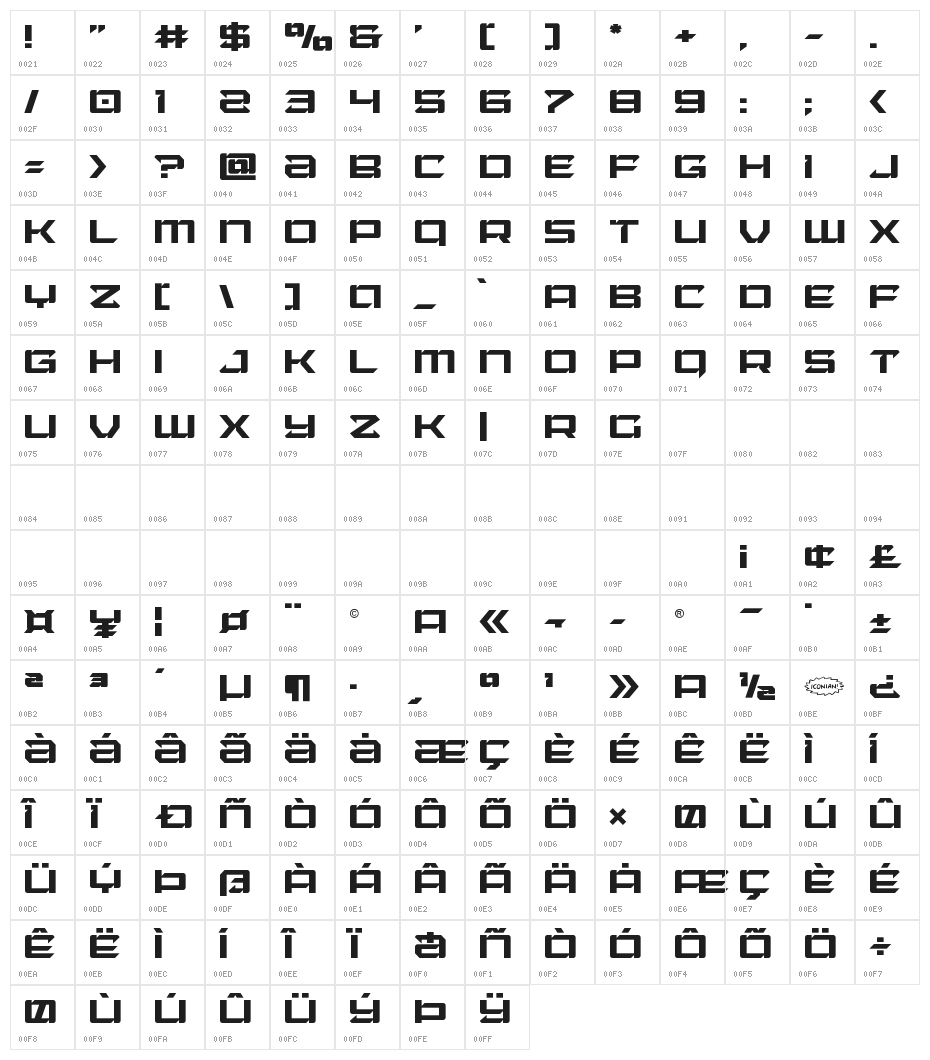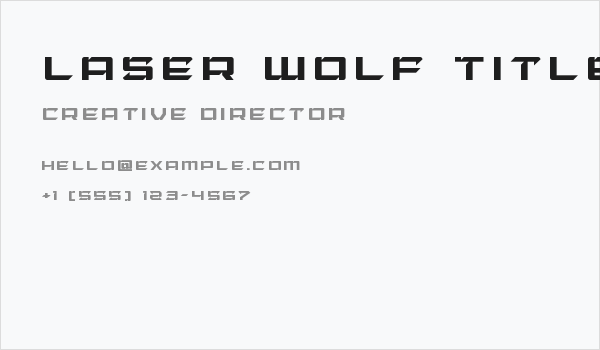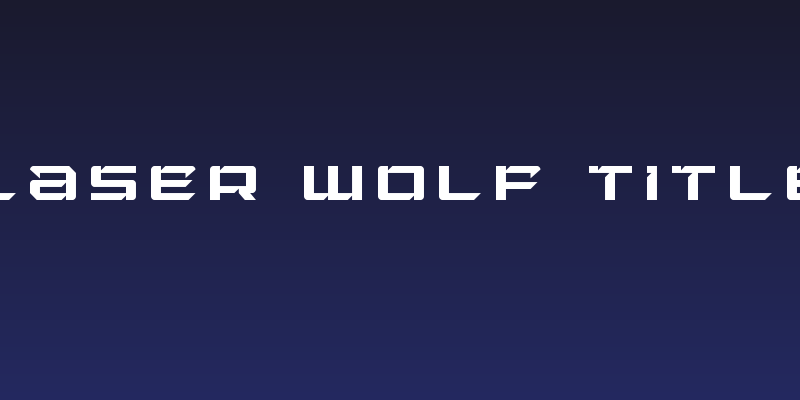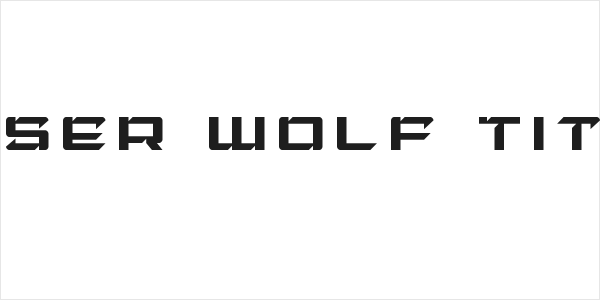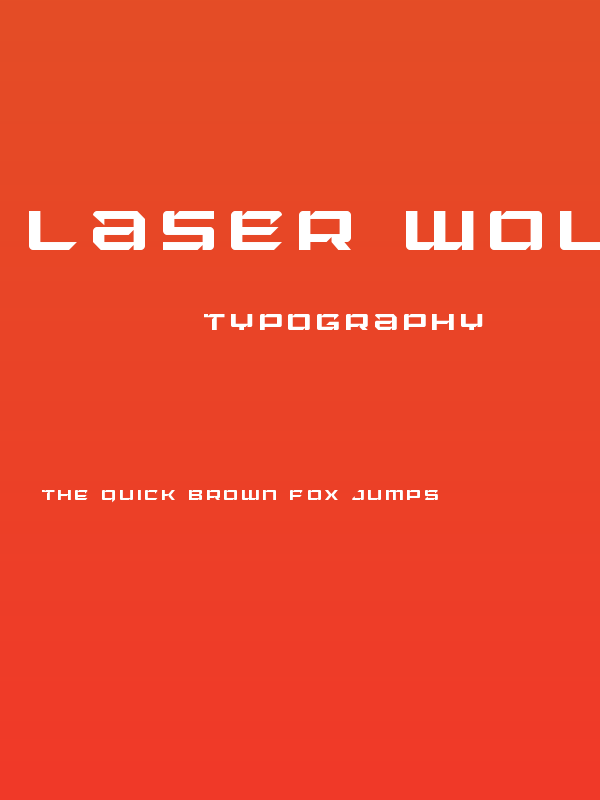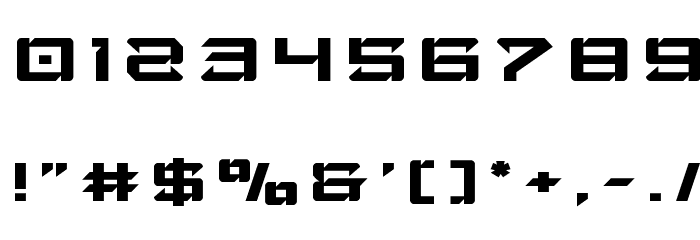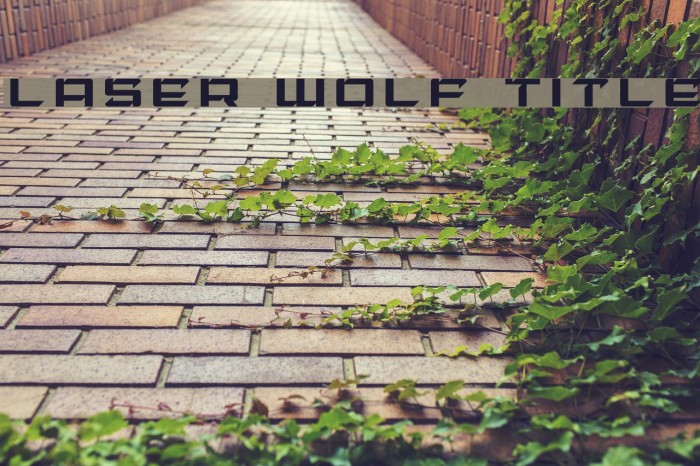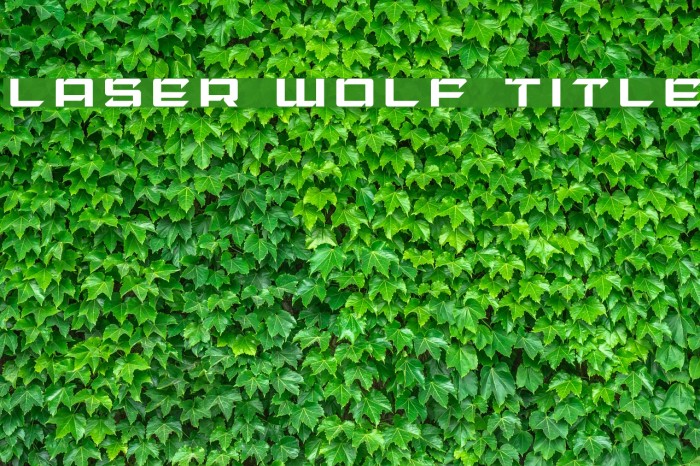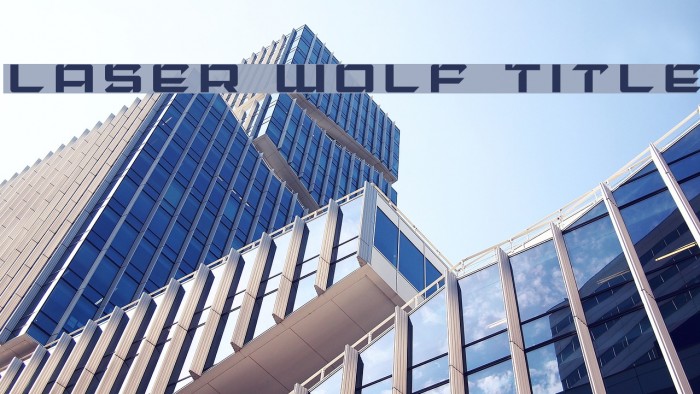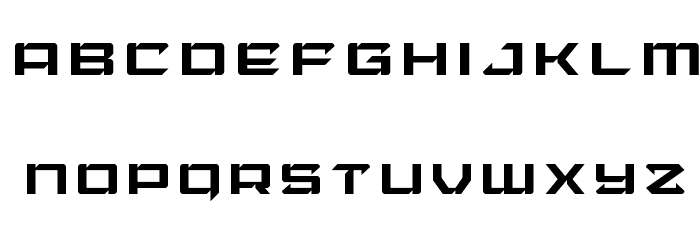
Laser Wolf Title Font
This font features a futuristic and angular design, characterized by sharp edges and geometric shapes. The uppercase and lowercase letters maintain a consistent style, with a bold presence that emphasizes its modern aesthetic. The numerals and special characters follow the same design principles, ensuring uniformity across all glyphs. The font's unique style is reminiscent of digital or sci-fi themes, making it ideal for projects that require a contemporary and edgy look.